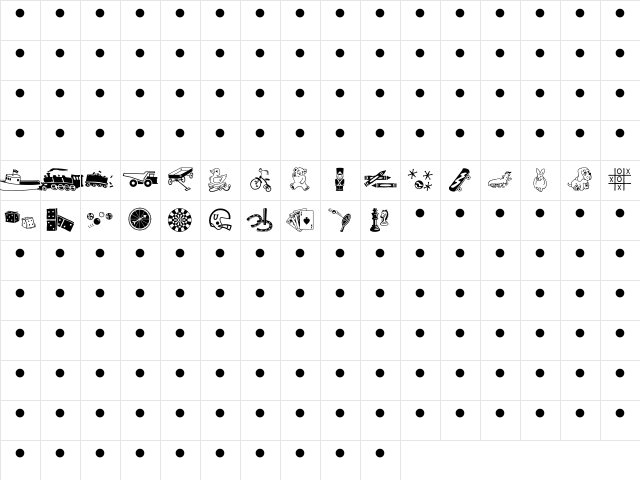
Playtime MT Regular Free Font
Playtime MT Regular
Playtime MT Family
Design Context for Playtime MT
Playtime MT is a composed and adaptable typeface that performs quietly and consistently across a wide range of design contexts.